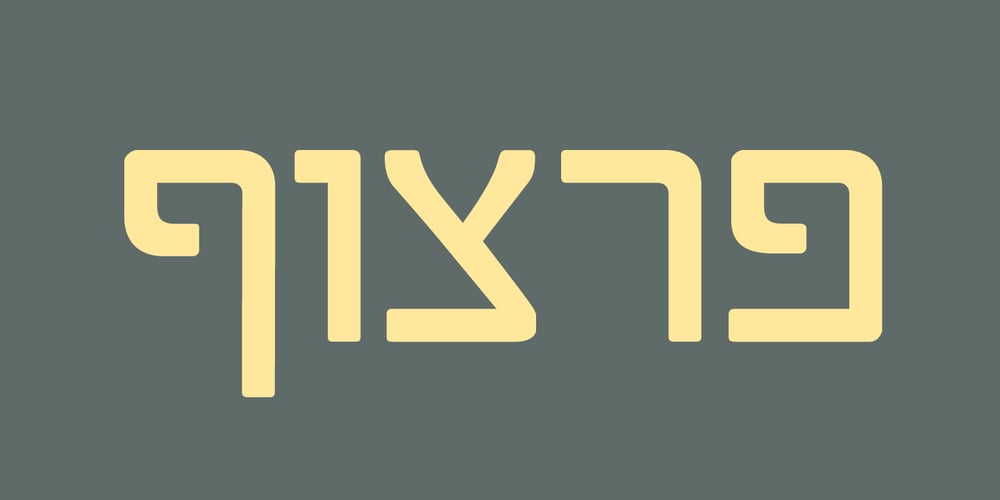
Degol MF
Degol MF font
Degol MF Font Family was designed by Uzi Batish and published by Masterfont. Degol MF contains 3 styles and family package options. Geometric forms make this elegant font family a great companion for invitations and signs, indoor and outdoor.